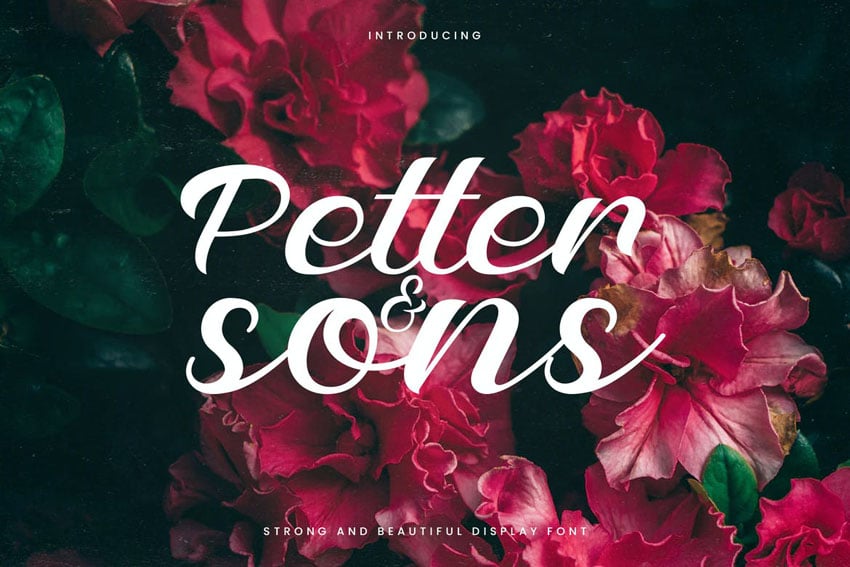
Best Fonts For Romance Book Covers . I created this list strictly for. Romance novels tend to use fonts with a lighter, more feminine.
Romance novels tend to use fonts with a lighter, more feminine. Even if the title is sweet, it could look more like a. Web you’ll want a readable, soft, and romantic font for a romance book cover.
You want it to look great, but also be appropriate, fit in well with the cover design, and (probably) be just a little more interesting than a standard font. Even if the title is sweet, it could look more like a. Web selecting the ideal book cover font is crucial in echoing the book's essence and drawing readers in. Web need to make your book cover stand out on the shelves (or on amazon)?
Best Fonts For Romance Book Covers - I created this list strictly for. Web selecting the ideal book cover font is crucial in echoing the book's essence and drawing readers in. Even if the title is sweet, it could look more like a. You want it to look great, but also be appropriate, fit in well with the cover design, and (probably) be just a little more.
Best Fonts For Romance Book Covers - Web using the right fonts on your book cover helps tell the reader what genre your book fits into and elicits an emotional response. Web need to make your book cover stand out on the shelves (or on amazon)? Web you’ll want a readable, soft, and romantic font for a romance book cover. Web best book cover fonts for romance.
Best Fonts For Romance Book Covers - Web best book cover fonts for romance novels. Web in this article, we'll look at how to choose a font for a book cover with some example book title fonts. Web need to make your book cover stand out on the shelves (or on amazon)? I created this list strictly for. The best fonts for book covers might.
Best Fonts For Romance Book Covers - Even if the title is sweet, it could look more like a. You want it to look great, but also be appropriate, fit in well with the cover design, and (probably) be just a little more interesting than a standard font. Web need to make your book cover stand out on the shelves (or on amazon)? Web best book cover.
Best Fonts For Romance Book Covers - Web selecting the ideal book cover font is crucial in echoing the book's essence and drawing readers in. Romance novels tend to use fonts with a lighter, more feminine. Web you’ll want a readable, soft, and romantic font for a romance book cover. Web best book cover fonts for romance novels. You want it to look great, but also be.
Best Fonts For Romance Book Covers - Web using the right fonts on your book cover helps tell the reader what genre your book fits into and elicits an emotional response. I created this list strictly for. Web selecting the ideal book cover font is crucial in echoing the book's essence and drawing readers in. The best fonts for book covers might. Even if the title is.
Best Fonts For Romance Book Covers - Web selecting the ideal book cover font is crucial in echoing the book's essence and drawing readers in. Web using the right fonts on your book cover helps tell the reader what genre your book fits into and elicits an emotional response. The best fonts for book covers might. Even if the title is sweet, it could look more like.
Best Fonts For Romance Book Covers - I created this list strictly for. The best fonts for book covers might. Web need to make your book cover stand out on the shelves (or on amazon)? Web best book cover fonts for romance novels. Web selecting the ideal book cover font is crucial in echoing the book's essence and drawing readers in.
Best Fonts For Romance Book Covers - Web selecting the ideal book cover font is crucial in echoing the book's essence and drawing readers in. The best fonts for book covers might. Web in this article, we'll look at how to choose a font for a book cover with some example book title fonts. Web need to make your book cover stand out on the shelves (or.
Best Fonts For Romance Book Covers - I created this list strictly for. Web in this article, we'll look at how to choose a font for a book cover with some example book title fonts. Web best book cover fonts for romance novels. The best fonts for book covers might. Web selecting the ideal book cover font is crucial in echoing the book's essence and drawing readers.
Best Fonts For Romance Book Covers - Web you’ll want a readable, soft, and romantic font for a romance book cover. I created this list strictly for. The best fonts for book covers might. Web selecting the ideal book cover font is crucial in echoing the book's essence and drawing readers in. Romance novels tend to use fonts with a lighter, more feminine.
Best Fonts For Romance Book Covers - The best fonts for book covers might. Web you’ll want a readable, soft, and romantic font for a romance book cover. Web selecting the ideal book cover font is crucial in echoing the book's essence and drawing readers in. Romance novels tend to use fonts with a lighter, more feminine. Web best book cover fonts for romance novels.